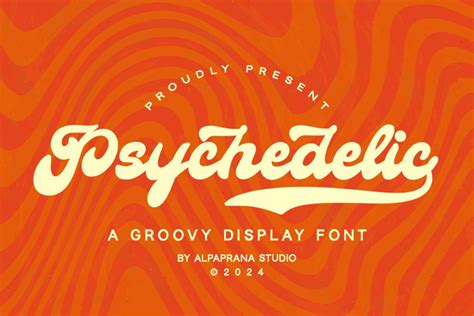
Get Free Psychedelic Fonts: Unleash Groovy Designs Now!
Get Free Psychedelic Fonts: Unleash Groovy Designs Now!Imagine stepping back into the vibrant, peace-loving, and utterly revolutionary era of the 1960s and early 70s. What comes to mind? Probably a kaleidoscope of colors, swirling patterns, mind-bending art, and of course, that distinct, unmistakable groovy vibe. A huge part of capturing that essence in visual design is through psychedelic fonts . If you’re looking to infuse your projects with a blast from the past, a touch of counter-culture cool, or just something truly unique that stands out from the crowd, then you, my friend, are in the right place. We’re about to dive deep into the wonderful world of free psychedelic fonts , showing you not only where to find them but also how to wield their magic to create truly memorable designs. Forget about boring, conventional typefaces for a moment and prepare to embark on a typographic journey that’s as exciting as a trip to Woodstock – minus the mud, of course! This article is your ultimate guide to harnessing the power of these incredible typefaces without spending a single dime, perfect for students, indie designers, small businesses, or anyone eager to experiment with a visually striking aesthetic. We’ll explore what makes these fonts so special, why they’re still incredibly relevant today, where you can safely download them, and some killer tips to make them shine in your work. So grab your lava lamp, put on some classic rock, and let’s get ready to unlock some truly far out design potential with free psychedelic fonts ! Get ready to infuse your posters, album covers, social media graphics, branding, and personal projects with an authentic vintage flair that truly speaks volumes. We’re talking about typefaces that ooze personality, character, and a rebellious spirit, allowing your designs to break free from the mundane and truly resonate with an audience seeking something different and bold. Don’t underestimate the power of a well-chosen font to set the entire mood and tone of your visual communication, and when it comes to capturing a specific era or attitude, psychedelic fonts are simply unparalleled. Trust us, by the end of this comprehensive guide, you’ll be armed with all the knowledge you need to become a true master of psychedelic typography without ever opening your wallet. Let’s dig in and make some magic happen!## What Are Psychedelic Fonts, Anyway?So, what exactly are psychedelic fonts ? Great question, guys! In a nutshell, these are typefaces heavily influenced by the art and culture of the psychedelic movement of the 1960s and early 1970s. Think of San Francisco’s Summer of Love, iconic concert posters for bands like The Grateful Dead and Jimi Hendrix, and the vibrant, often swirling, organic artwork associated with that era. These fonts are anything but subtle; they are bold, expressive, and often push the boundaries of readability in favor of a strong visual statement. Key characteristics of psychedelic typography often include fluid, undulating lines, exaggerated curves, distorted letterforms that sometimes appear to melt or ripple, and a generally organic, hand-drawn feel. You’ll frequently see letters that intertwine, stretch, or bulge, creating a sense of movement and visual rhythm. The goal isn’t necessarily immediate legibility, but rather to evoke a particular mood, a sense of wonder, or even a slight disorientation, much like the experiences that inspired the movement itself. These groovy fonts were born out of a desire to break away from conventional design norms, much like the counter-culture sought to break free from societal norms. Designers of the era, such as Wes Wilson, Victor Moscoso, and Rick Griffin, became masters of this style, creating posters that were not just informational but true works of art, often becoming collector’s items. Their letters would often mimic the flowing, almost liquid forms of Art Nouveau, but with a distinctly modern, rebellious twist. They were designed to be experienced, to be looked at and absorbed, rather than just quickly read. This makes free psychedelic fonts a fantastic choice for projects where you want to make a powerful visual impact, like event flyers, album covers, party invitations, or anything that needs to feel retro , vintage , or just plain cool . They carry a rich history and a rebellious spirit within their curves and swashes, instantly transporting your audience to a time of social change, musical innovation, and artistic liberation. Understanding these roots helps you appreciate why a simple font choice can pack such a powerful punch, adding layers of meaning and nostalgia to your creative endeavors. When you choose a psychedelic font , you’re not just picking a typeface; you’re embracing a cultural statement and inviting your audience to experience a piece of history through your design. And the best part? You can find many of these amazing psychedelic fonts free to download and use in your own projects, bringing that timeless aesthetic right to your fingertips without any cost involved. It’s an opportunity to inject genuine character and historical resonance into your work, making it stand out in a visually saturated world.### The History and Evolution of Psychedelic TypographyThe roots of psychedelic typography are firmly planted in the counter-culture movement of the 1960s. As music evolved and experimented with new sounds, visual art followed suit, seeking to represent the altered states of consciousness and the free-spirited ethos of the time. Early designers drew inspiration from sources as diverse as Art Nouveau posters from the turn of the century, Victorian typefaces, and even traditional calligraphy, but twisted them into something entirely new and unconventional. This era saw the rise of iconic concert posters, particularly from the Fillmore Auditorium and Avalon Ballroom in San Francisco, where artists like Wes Wilson pioneered the style. Wilson’s work, characterized by tall, undulating letters that often filled the entire design space, made text an integral part of the overall artwork rather than a mere informative element. These early 60s fonts were often hand-drawn, giving them a unique, organic feel that’s difficult to replicate with standardized digital type. As the movement progressed, other artists added their own interpretations, leading to a wide variety of styles within the psychedelic font umbrella – from highly legible (though still unique) to almost completely abstract. The influence of Eastern art, particularly mandalas and intricate patterns, also found its way into these designs, adding another layer of visual complexity. Over the decades, while the mainstream adopted more minimalist approaches, the psychedelic aesthetic persisted in subcultures, music scenes, and independent art, proving its enduring appeal. Today, free psychedelic fonts pay homage to this rich history, allowing contemporary designers to tap into that iconic look and feel, celebrating a period of unparalleled creativity and rebellious design. They are a direct link to a time when art and culture truly challenged the status quo.## Why Use Free Psychedelic Fonts in Your Designs?Alright, so we’ve talked about what these groovy fonts are, but why should you, a modern designer or creative, bother with free psychedelic fonts in your projects? Well, let me tell you, guys, the reasons are as vibrant and compelling as the fonts themselves! First and foremost, using these typefaces injects an instant dose of personality and distinctiveness into your work. In a world saturated with clean, minimalist, and often generic design, a well-placed psychedelic font can make your creation pop off the screen or page. It’s a fantastic way to differentiate yourself and ensure your message isn’t lost in the visual noise. Think about it: if every brand uses Helvetica or Arial, how do you stand out? Free psychedelic fonts offer a readily accessible solution to this design dilemma, providing a unique aesthetic that instantly grabs attention and communicates a specific vibe. They evoke a sense of nostalgia, coolness, and artistic freedom that few other font styles can match, making them incredibly powerful tools for visual storytelling. Beyond just standing out, these fonts are brilliant for creating a specific mood or theme. Planning a retro-themed party? Designing an album cover for an indie rock band? Creating social media graphics for a vintage clothing store? A hippie font or a 60s font is your secret weapon. It instantly sets the tone, communicating an aesthetic that is playful, rebellious, artistic, or nostalgic, depending on the specific font you choose. They tell a story before anyone even reads a word, drawing people in with their unique charm. The cost-effectiveness is another massive perk. As the name suggests, these are free psychedelic fonts , meaning you get all this unique character and historical flair without having to spend a single penny. This is especially awesome for students, hobbyists, startups, or anyone working with a tight budget who still wants to produce high-quality, distinctive designs. Why pay for a premium font when there are so many fantastic free retro fonts and free vintage fonts available that offer the exact aesthetic you’re going for? This allows you to experiment freely, trying out different styles and seeing what truly resonates with your project without any financial commitment. It lowers the barrier to entry for exceptional design. Furthermore, incorporating psychedelic typography can make your designs feel more authentic and handcrafted. Many of these fonts, even in digital form, retain the organic, illustrative qualities of their hand-drawn predecessors. This can add a touch of warmth and humanity to your work, counteracting the often sterile feel of purely digital design. They whisper tales of creativity, rebellion, and a time when art was intimately intertwined with social change. When used thoughtfully, these fonts aren’t just decorative; they’re narrative devices that can deeply enrich the user’s experience and leave a lasting impression. So, go ahead and explore the vibrant possibilities that these free psychedelic fonts offer; your designs (and your wallet!) will thank you for it. They are a gateway to creativity, allowing you to express complex emotions and historical echoes with remarkable visual impact. ### Branding and Marketing with Psychedelic FontsWhen it comes to branding and marketing, a distinctive visual identity is crucial. Free psychedelic fonts can be an incredible asset for brands aiming for a non-conformist, artistic, or vintage appeal. Imagine a craft brewery using a groovy font for their beer labels, instantly conveying a unique, artisanal, and slightly rebellious spirit. Or a music festival brandishing a vibrant 60s font in its promotional materials, immediately setting a tone of freedom, music, and good vibes. These fonts help carve out a niche, making a brand memorable and visually resonant with its target audience. They’re not just for superficial decoration; they’re powerful tools for conveying core brand values. However, remember that context is key. While perfect for certain niches, they might not suit a corporate law firm!### Personal Projects and Creative ExpressionFor personal projects, the sky’s the limit with free psychedelic fonts . Designing custom T-shirts, creating unique digital art, crafting invitations for a themed party, or even just sprucing up your social media profile – these fonts offer endless possibilities for creative expression. They allow you to infuse your personality and artistic vision into every piece. Maybe you’re working on a poster for a local band, designing a zine, or simply making a cool desktop wallpaper; a psychedelic font can elevate it from ordinary to extraordinary. They invite playfulness and experimentation, encouraging you to step outside the box and create something truly original that reflects your inner artist. It’s about having fun and letting your creativity flow freely, unrestricted by budget or conventional expectations.## Where to Find the Best Free Psychedelic Fonts (and What to Look For)Alright, you’re convinced! Now you’re probably asking,